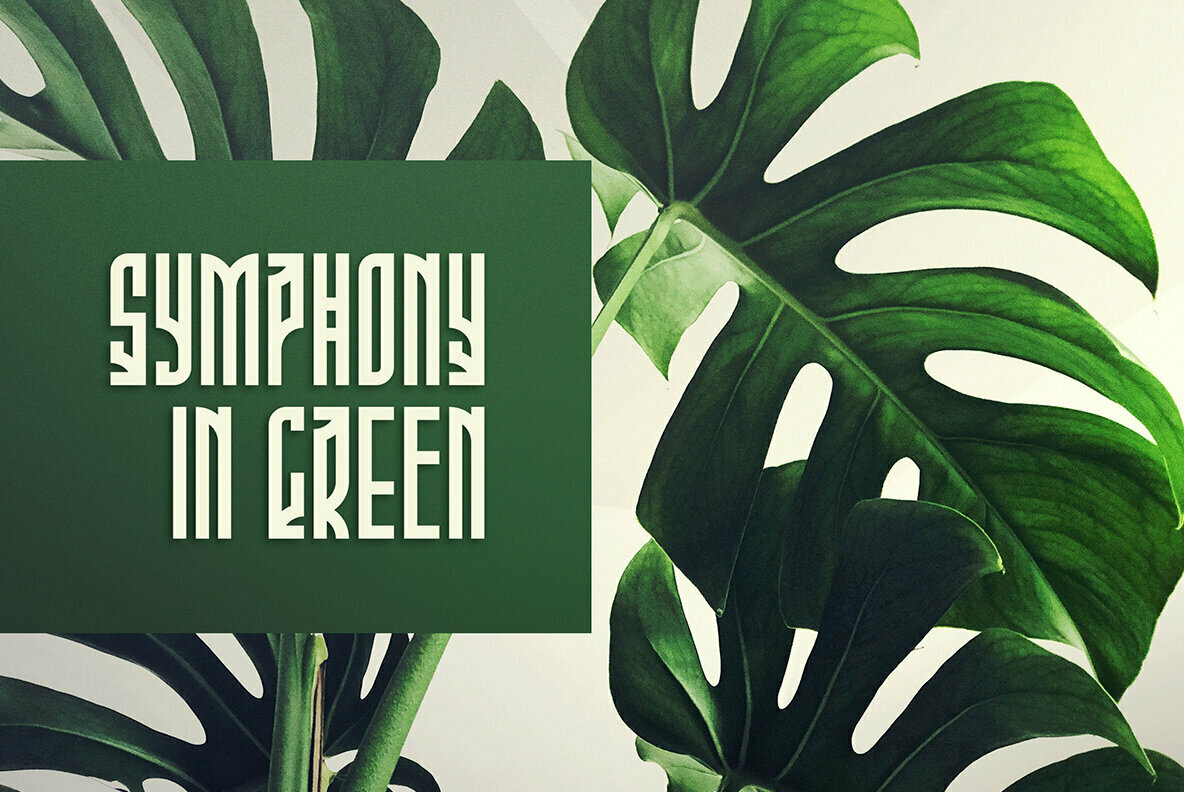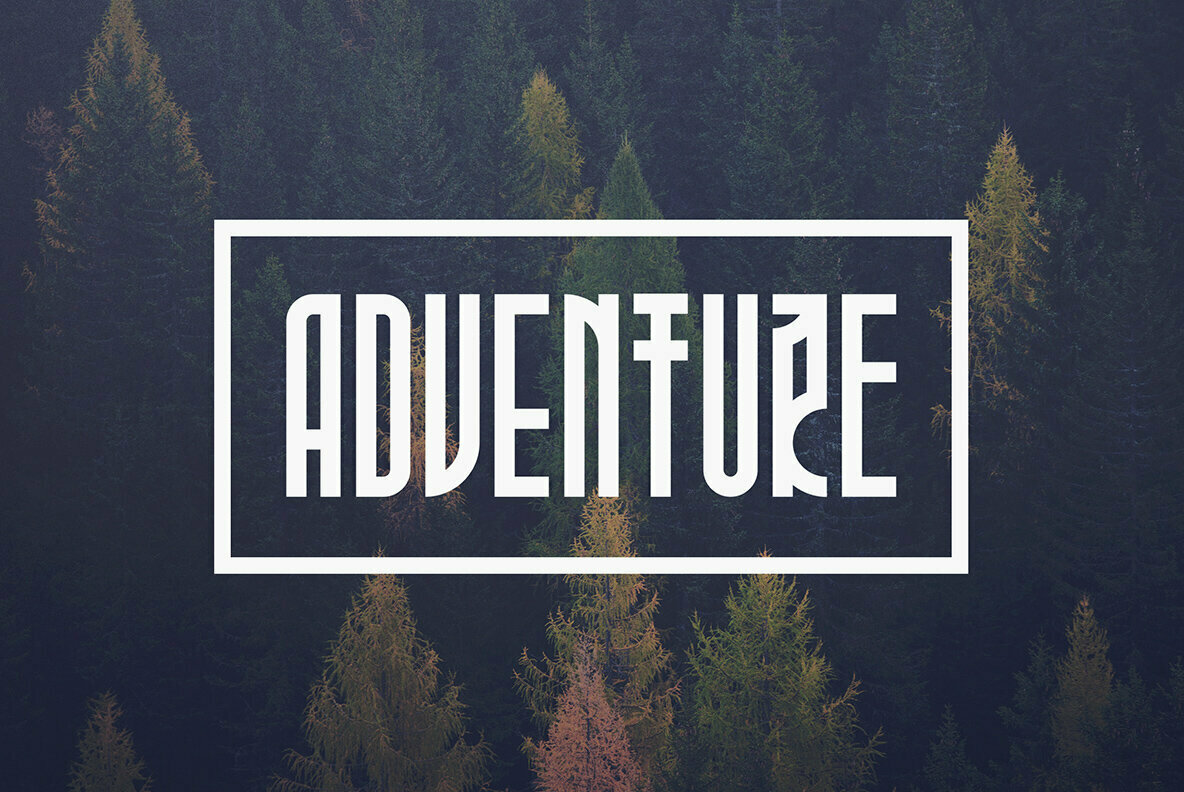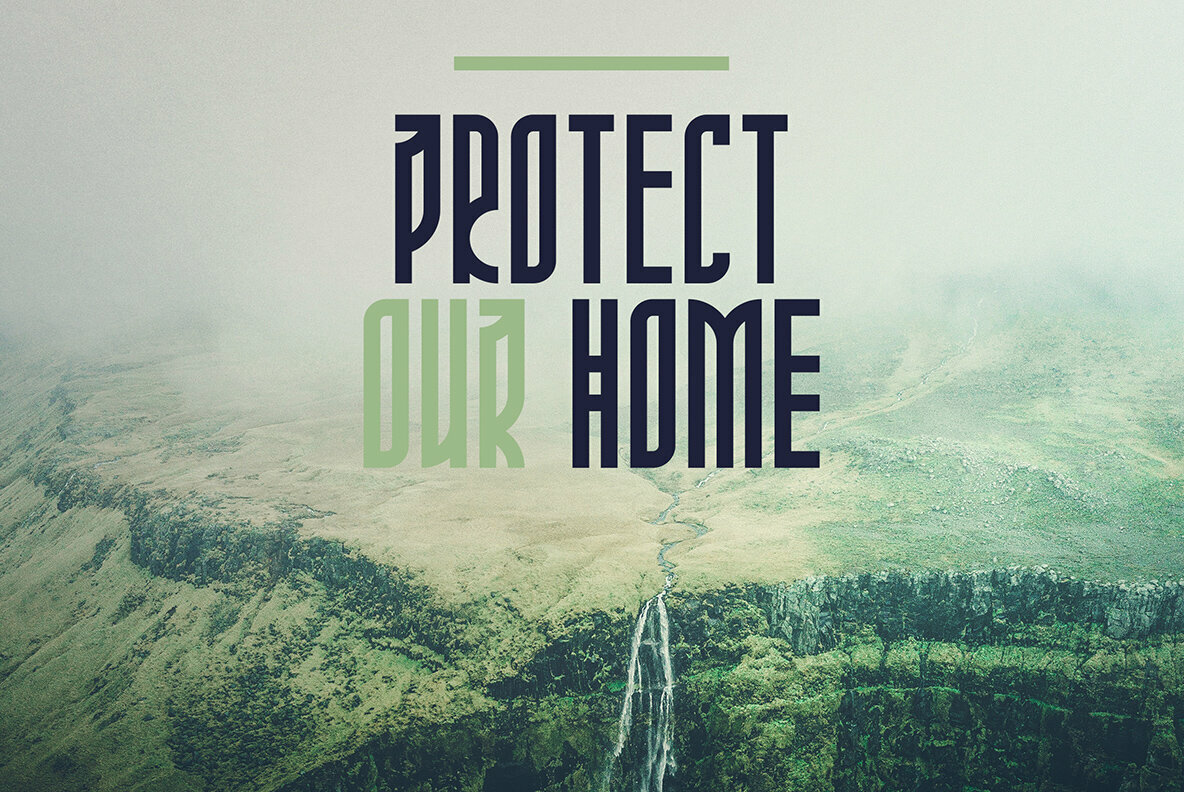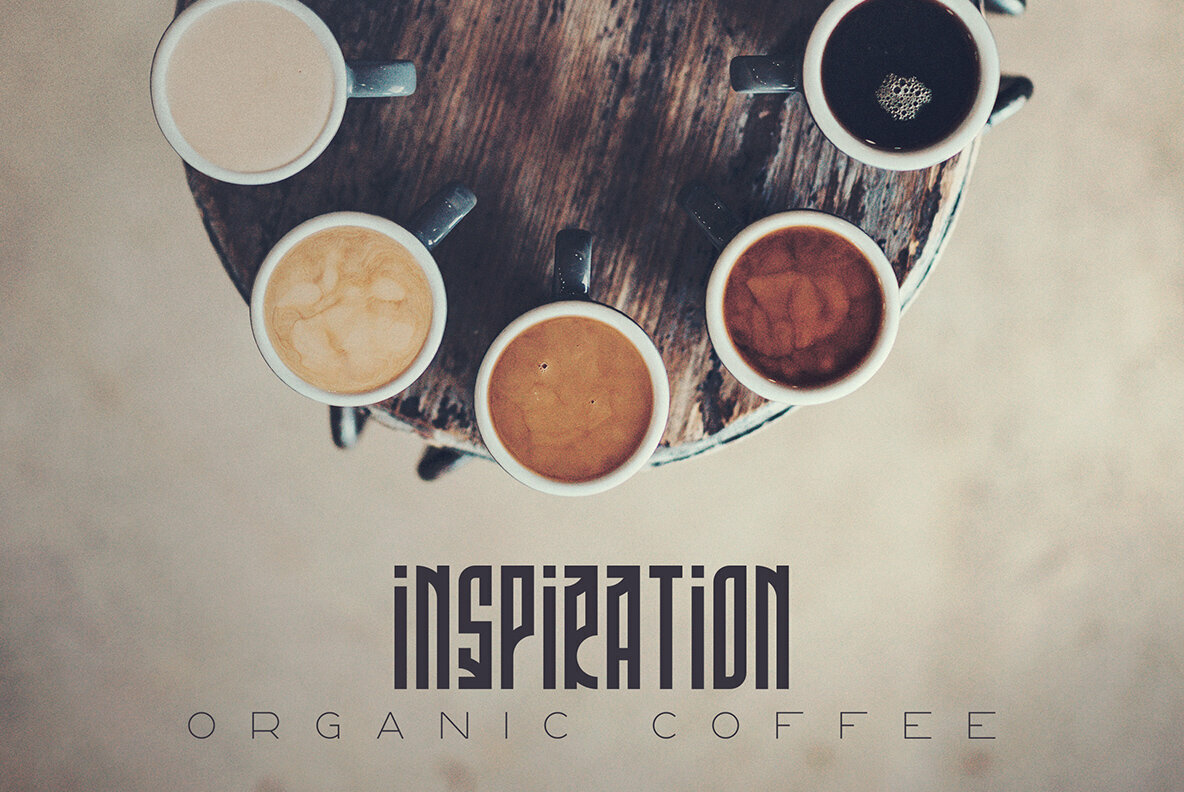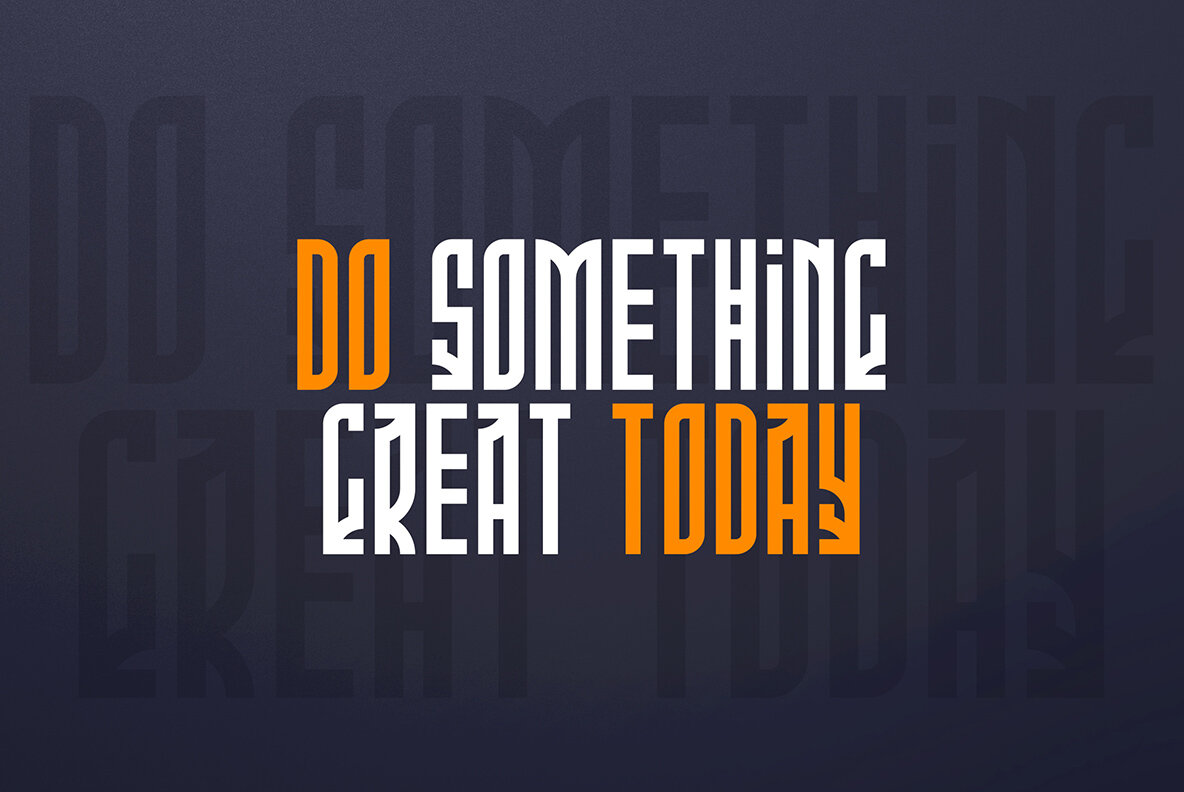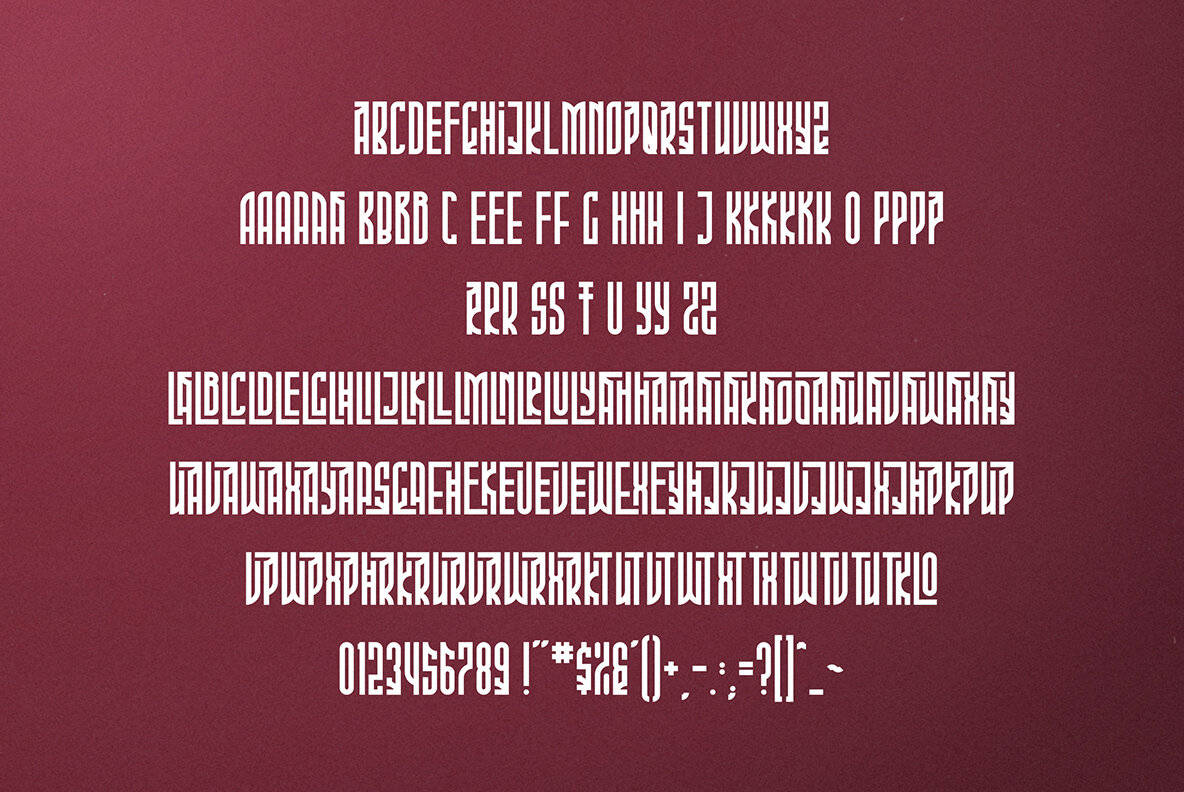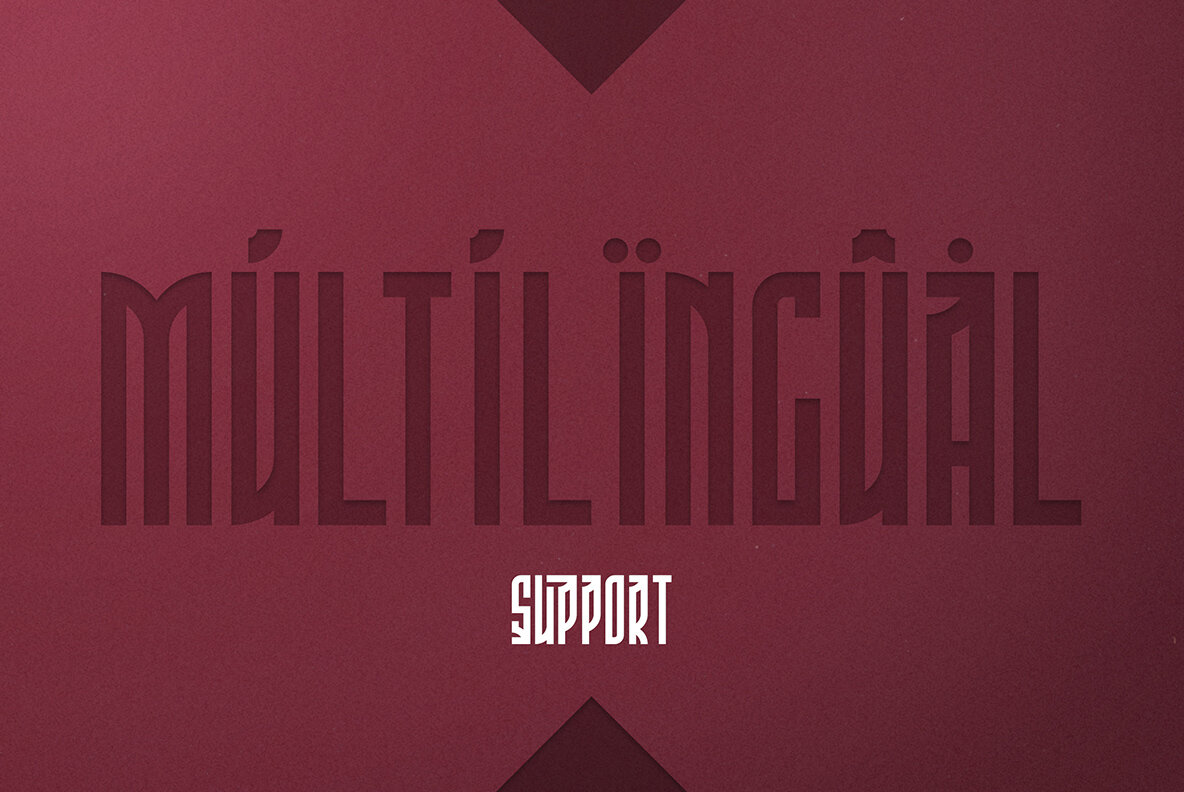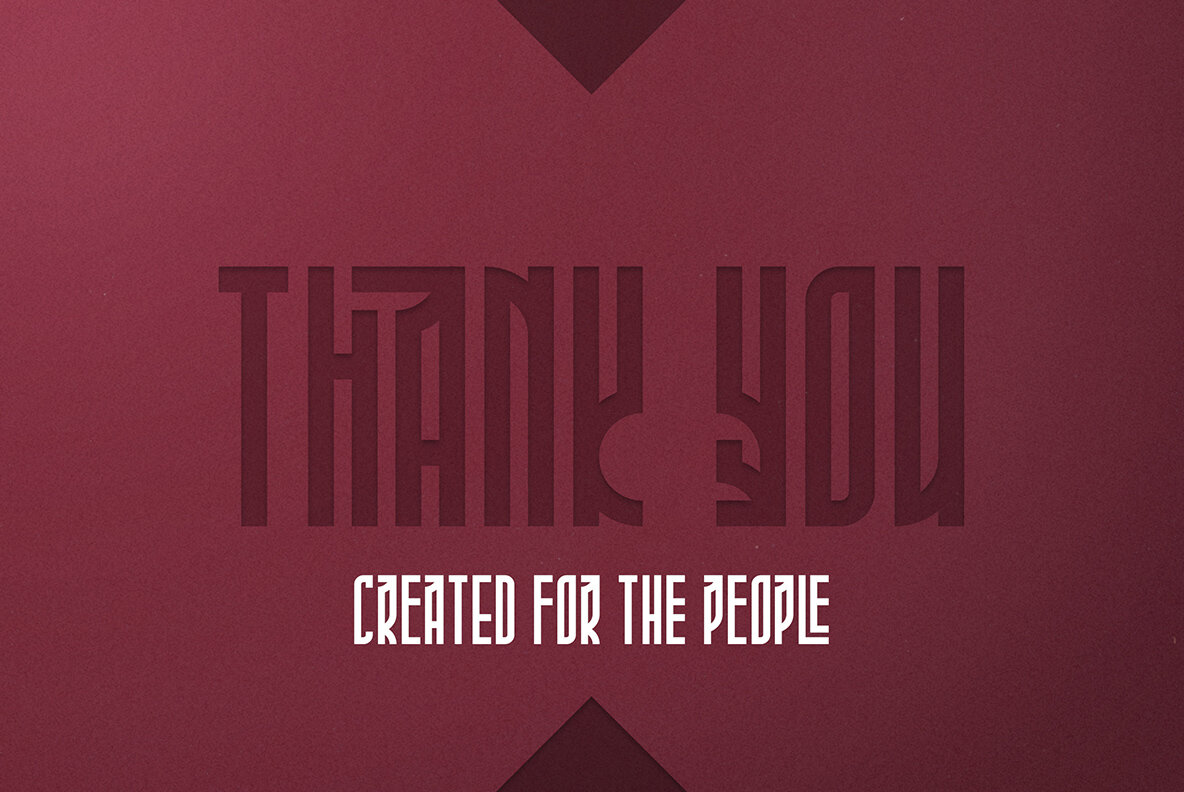
Phoeniks Font
Phoeniks
Phoeniks emerges as a refined display font from VP Creative Shop, offering a clean and urban aesthetic that seamlessly adapts to both large and small scales. This modern typeface is meticulously crafted with ligatures, alternate glyphs, and robust multilingual support, making it an asset for diverse design projects. Phoeniks is particularly well-suited for branding projects, home-ware designs, and product packaging. It also shines in magazine headers, providing a stylish text overlay for background images. Features: To access alternate glyphs in Adobe InDesign or Illustrator, navigate to Window > Type & Tables > Glyphs. In Photoshop, select Window > Glyphs. Use the panel's Show menu to choose Alternates for Selection, and double-click on an alternate's thumbnail to replace it. Please note that mock-ups and background images are not included.Phoeniks: A Versatile Urban Display Font